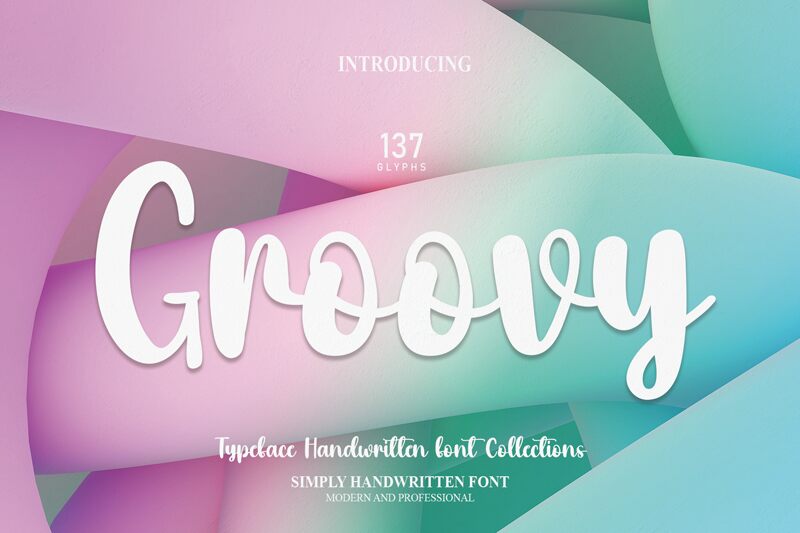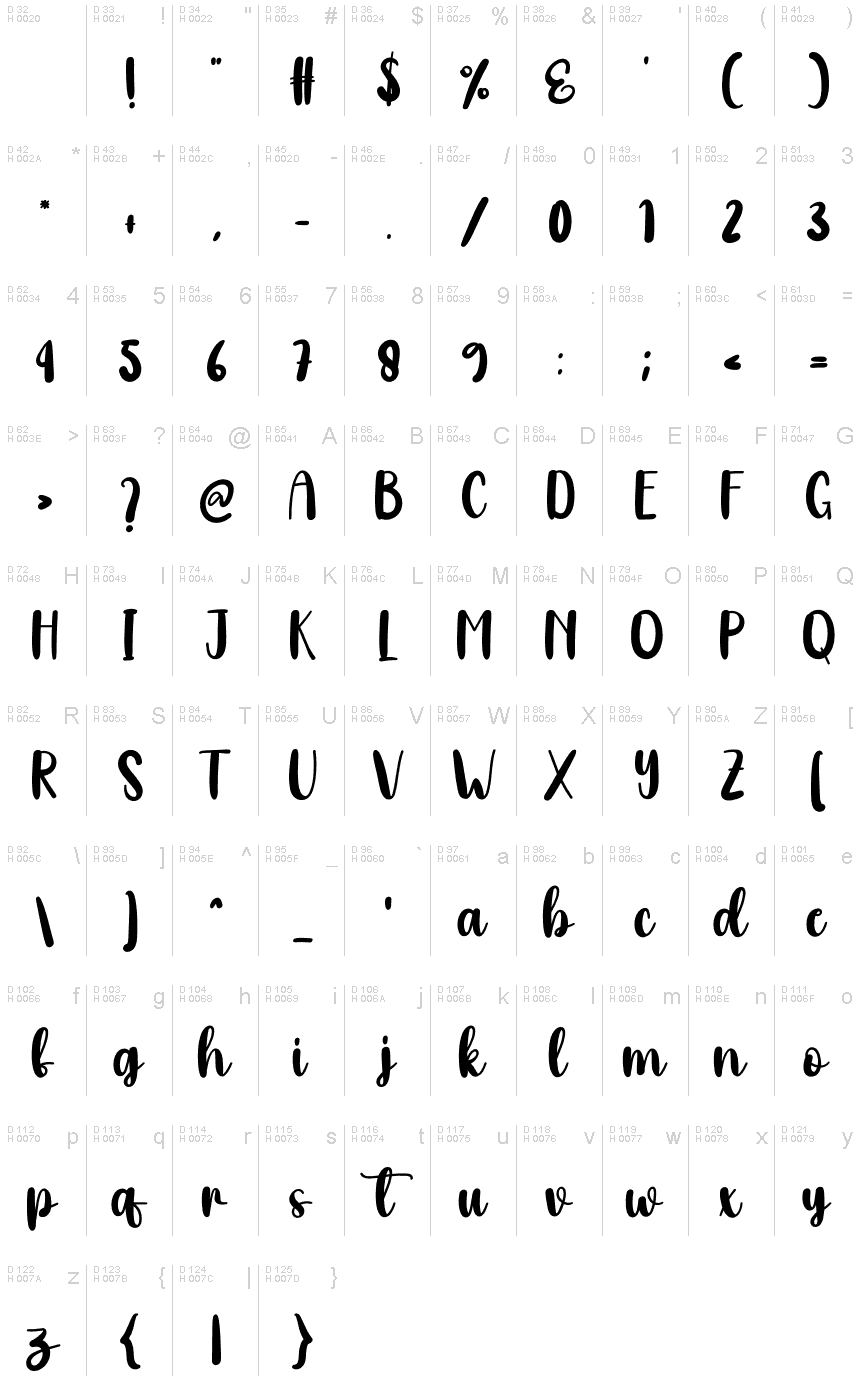
Groovy
Looking for a font that's perfect for adding a touch of retro flair to your creative projects? Look no further than Groovy, the smooth brush typeface by scratchones! With its semi-bold weight and flowing lines, this font is perfect for everything from vintage-inspired posters and flyers to eye-catching social media graphics. Whether you're designing a new logo or creating stunning visuals for your blog or website, Groovy is the ideal choice for anyone looking to make a statement with their typography. So why wait? Start exploring all the amazing possibilities of this versatile font today!
the latest style letters are perfect for wall displays, wedding invitations, social media post logos, advertisements, product packaging, product designs, labels, photography, watermarks, invitations, stationery, and any project that requires taste handwriting.